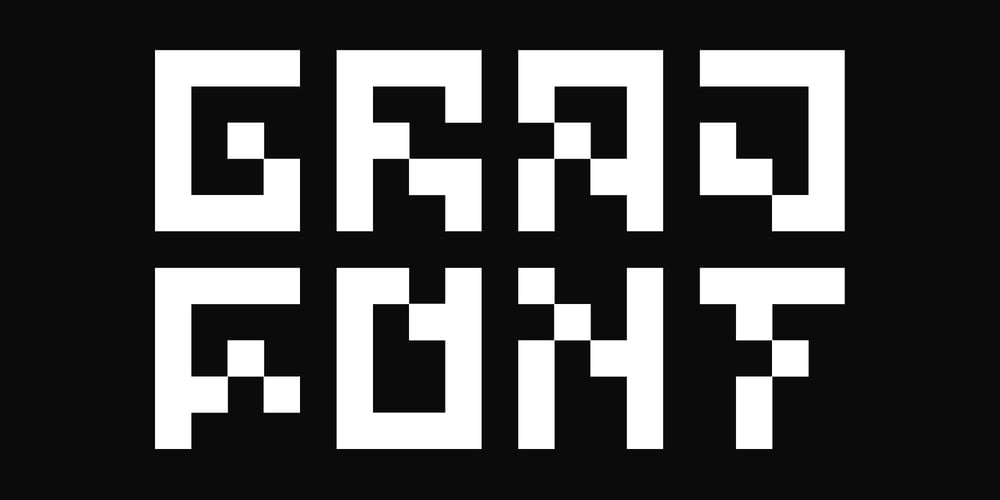
Graj
Graj font
Graj Font Family was designed by Bartosz Panek and published by Fontsphere. Graj contains 3 styles and family package options. GRAJ is a minimalist, bitmap font with a unique pixel style. It features a sophisticated and original form, making it quite experimental. Despite this, it is widely applicable, and can be used for a variety of large text projects, headers, and custom projects. Its unique geometric elements are perfect for creating custom designs, logos, and other projects requiring a unique and modern aesthetic. With its ingenuity and versatility, GRAJ is a perfect choice for any project requiring a modern bitmap typeface.